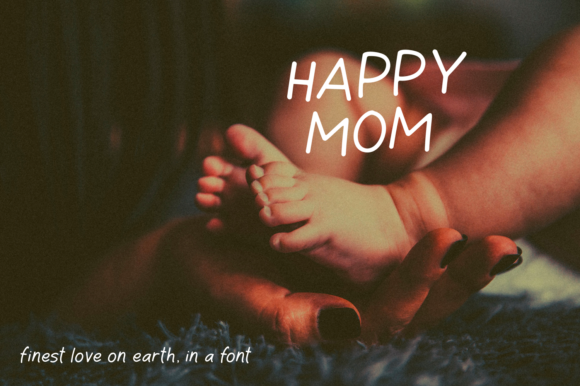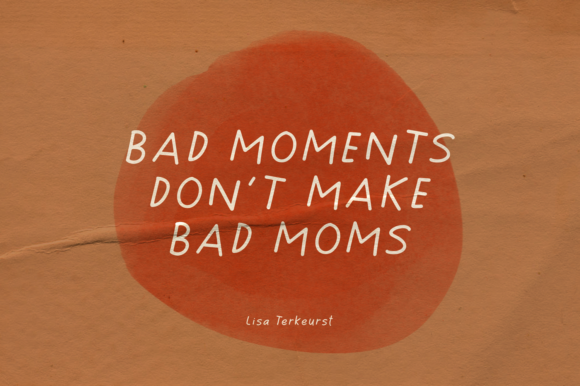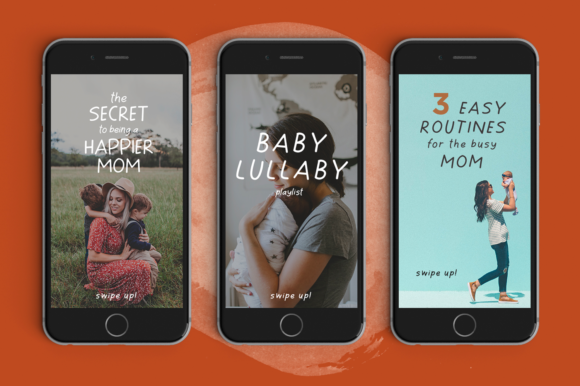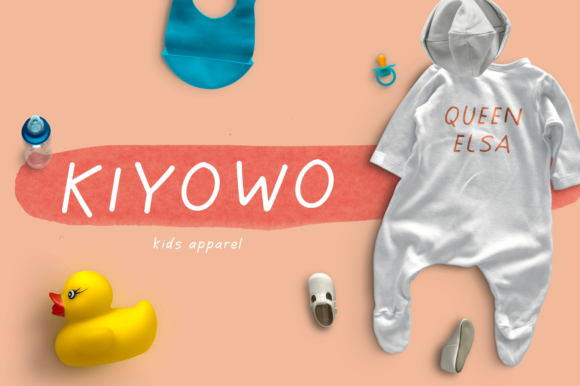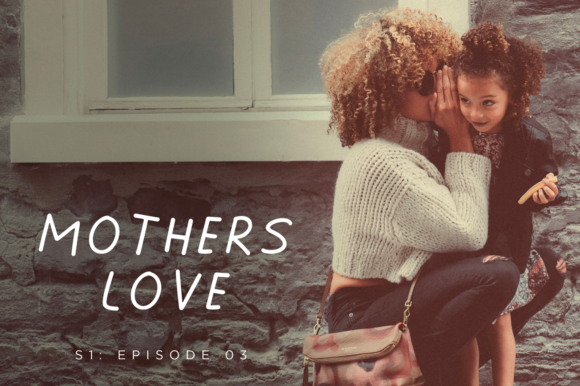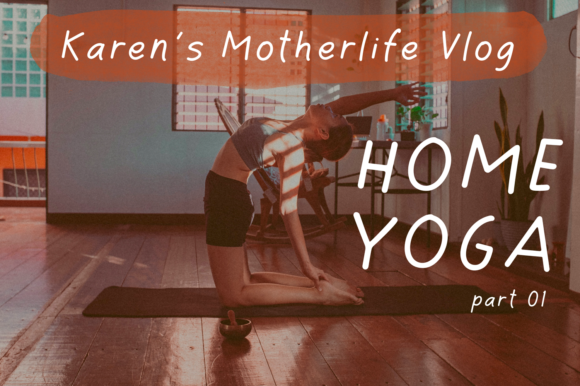
Introducing Happy Mom Font: The Perfect Addition to Your Design Arsenal
Are you a designer, crafter, or educator looking for a font that can add a personal touch to your creations? Look no further than Happy Mom Font, a delightful and straightforward lettered handwritten font that’s perfect for chalkboard quotes, teaching materials, and more. In this article, we’ll dive into the world of Happy Mom Font, exploring its features, benefits, and uses, as well as provide tips on how to make the most of this charming font.
What is Happy Mom Font?
Happy Mom Font is a cute and simple lettered handwritten font designed to bring a touch of warmth and authenticity to your designs. Its handcrafted look and feel make it an excellent choice for creating materials that require a personal and realistic touch. Whether you’re a teacher looking to create engaging lesson plans, a designer working on a project that requires a human touch, or a crafter seeking to add a personal flair to your DIY projects, Happy Mom Font is the perfect solution.
Key Features of Happy Mom Font
- Cute and Simple Design: Happy Mom Font boasts a delightful and uncomplicated design that makes it easy to read and use.
- Handwritten Style: Its handwritten style gives your designs a personal and realistic feel that’s hard to replicate with generic fonts.
- Chalkboard-Inspired: The font’s chalkboard-inspired look makes it perfect for creating quotes, posters, and other materials that require a rustic, nostalgic feel.
- Versatile: Happy Mom Font can be used for a wide range of projects, from teaching materials and chalkboard quotes to crafts, DIY projects, and more.
Benefits of Using Happy Mom Font
So, why choose Happy Mom Font over other fonts? Here are just a few benefits of using this delightful font:
- Adds a Personal Touch: Happy Mom Font’s handwritten style and charming design add a personal touch to your creations, making them more relatable and engaging.
- Enhances Readability: The font’s clear and simple design ensures that your text is easy to read, even for younger audiences or those with reading difficulties.
- Time-Saving: With Happy Mom Font, you can create professional-looking materials quickly and easily, saving you time and effort.
Tips for Using Happy Mom Font
To get the most out of Happy Mom Font, here are a few tips to keep in mind:
- Pair with Other Fonts: Combine Happy Mom Font with other fonts to create visual interest and add depth to your designs.
- Experiment with Colors: Try out different colors and textures to give your designs a unique and personalized look.
- Use for Headings and Titles: Happy Mom Font is perfect for headings and titles, adding a touch of personality to your text.
- Don’t Overuse: Use Happy Mom Font judiciously to avoid overwhelming your designs – sometimes, less is more.
Who Can Benefit from Happy Mom Font?
Happy Mom Font is an excellent choice for a wide range of individuals and groups, including:
- Teachers and Educators: Create engaging lesson plans, chalkboard quotes, and teaching materials with this delightful font.
- Designers: Add a personal touch to your designs with Happy Mom Font, perfect for projects that require a human touch.
- Crafters and DIY Enthusiasts: Use Happy Mom Font to add a personal flair to your crafts, DIY projects, and other creative endeavors.
- Small Business Owners: Create eye-catching marketing materials, such as posters, flyers, and brochures, with this charming font.
| Font Name | Happy Mom Font |
In conclusion, Happy Mom Font is a versatile and charming font that’s perfect for designers, crafters, educators, and anyone looking to add a personal touch to their creations. With its cute and simple design, handwritten style, and chalkboard-inspired look, this font is sure to become a staple in your design arsenal. So why wait? Download Happy Mom Font today and start creating engaging, personalized materials that will capture your audience’s attention!